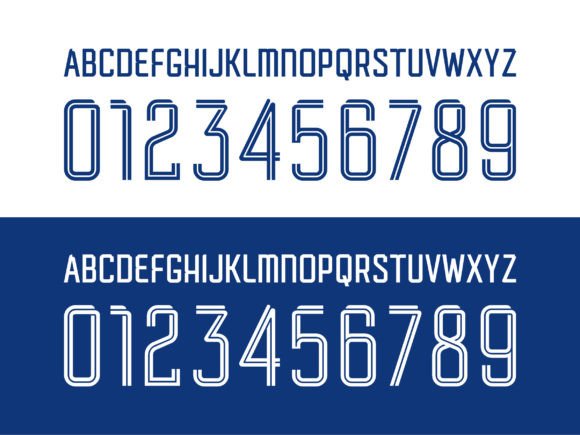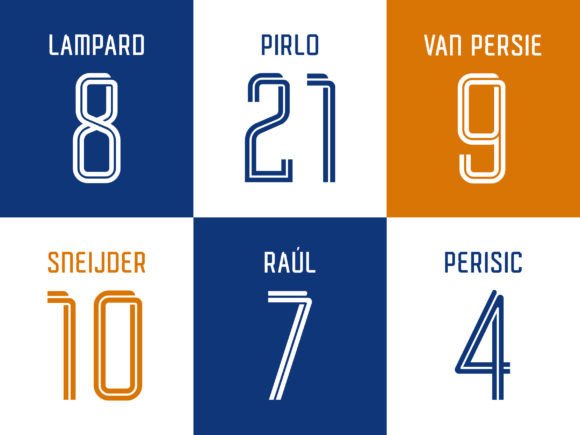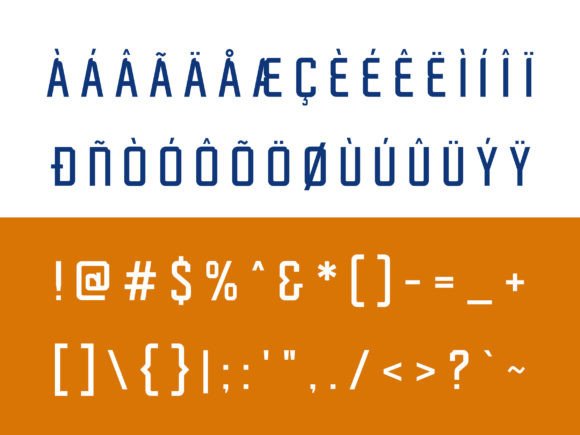
Introduction to Golazo Font
Golazo is a display font that is made for football or other sports kit numbers.
Even though it is made for sports, Golazo is also great for other display purpose With its unique shape number and letter, it will make your team jersey look different and boost your confidence.
Key Features of Golazo Font
Why Choose Golazo Font?